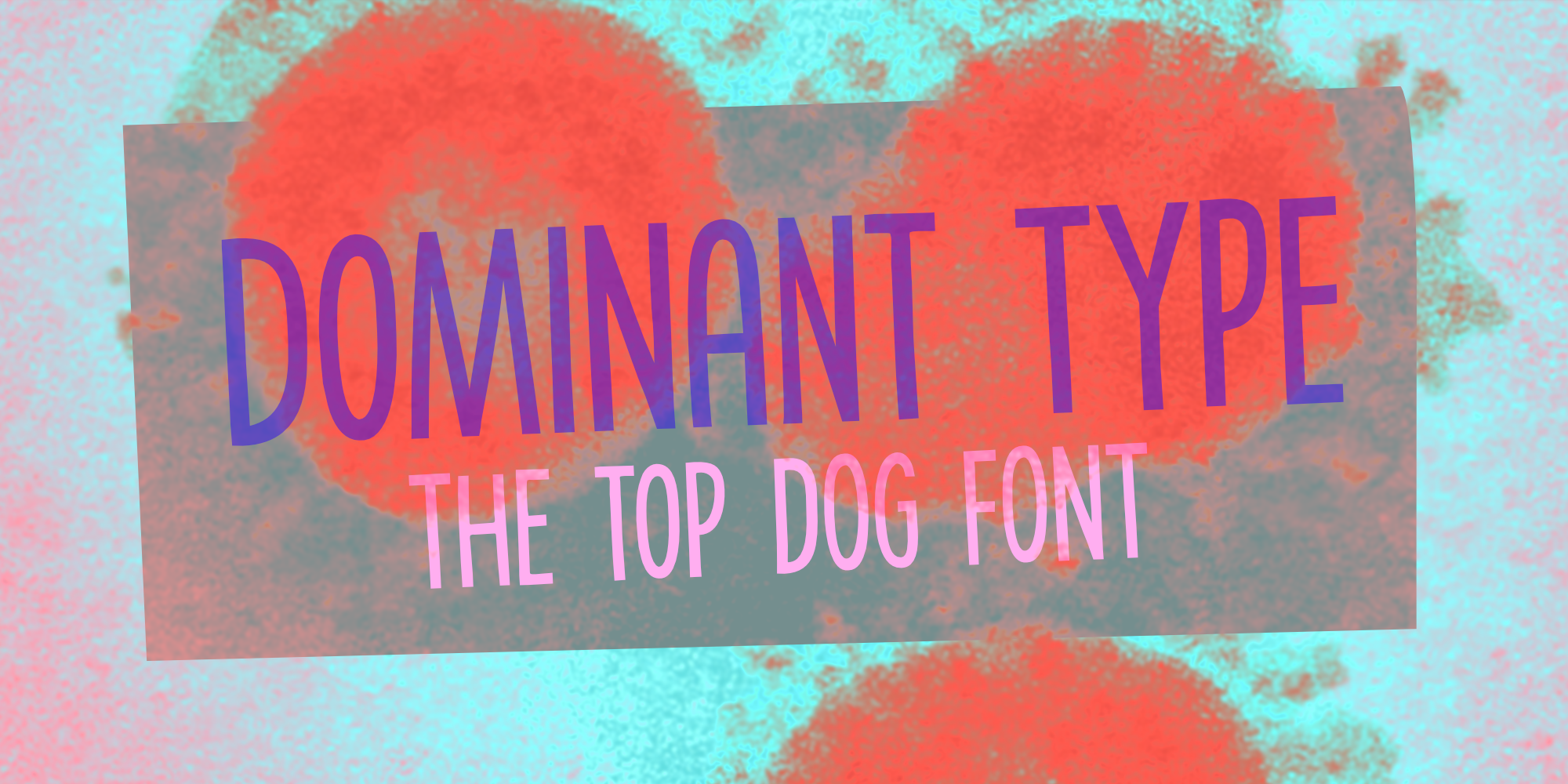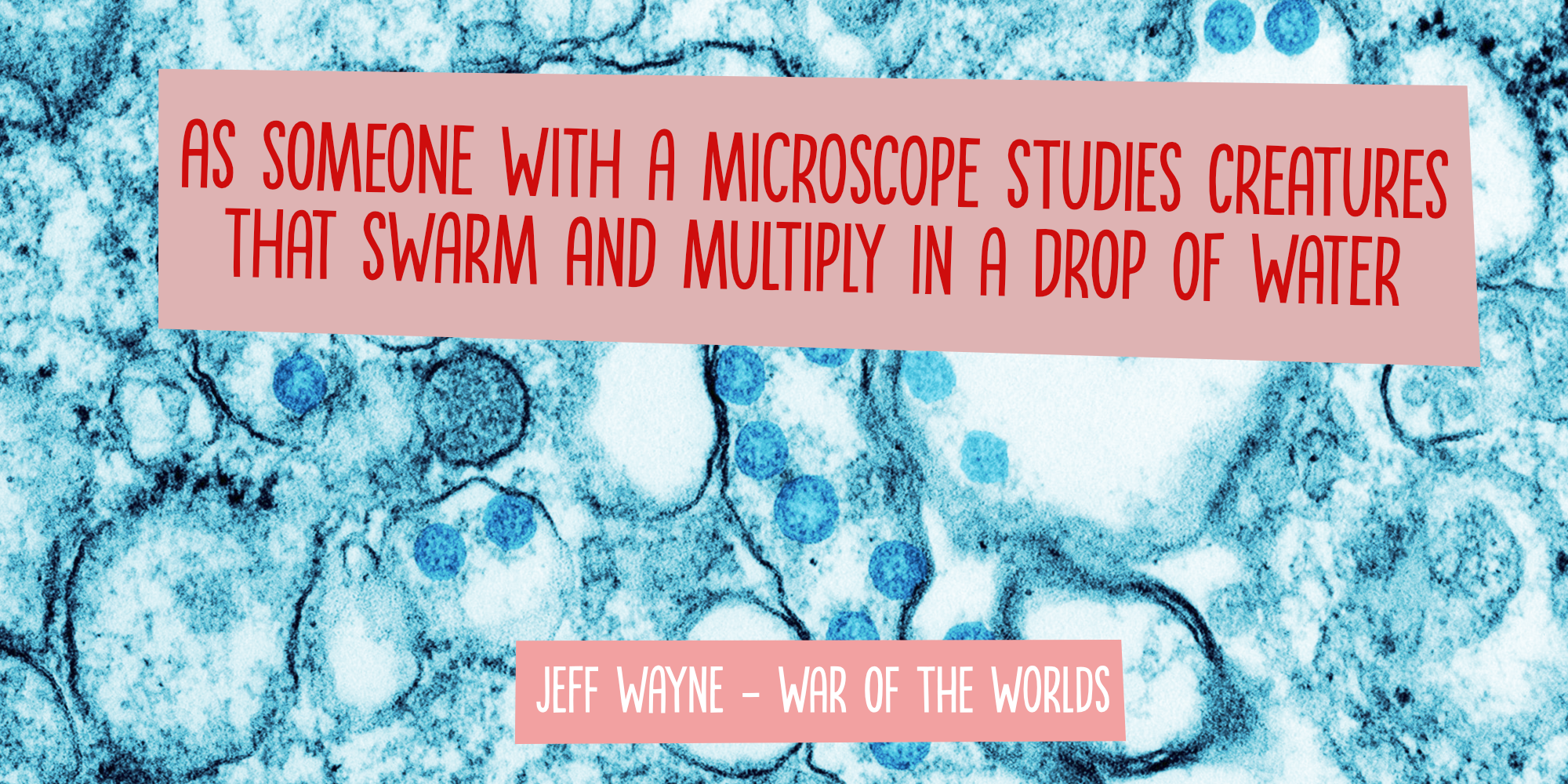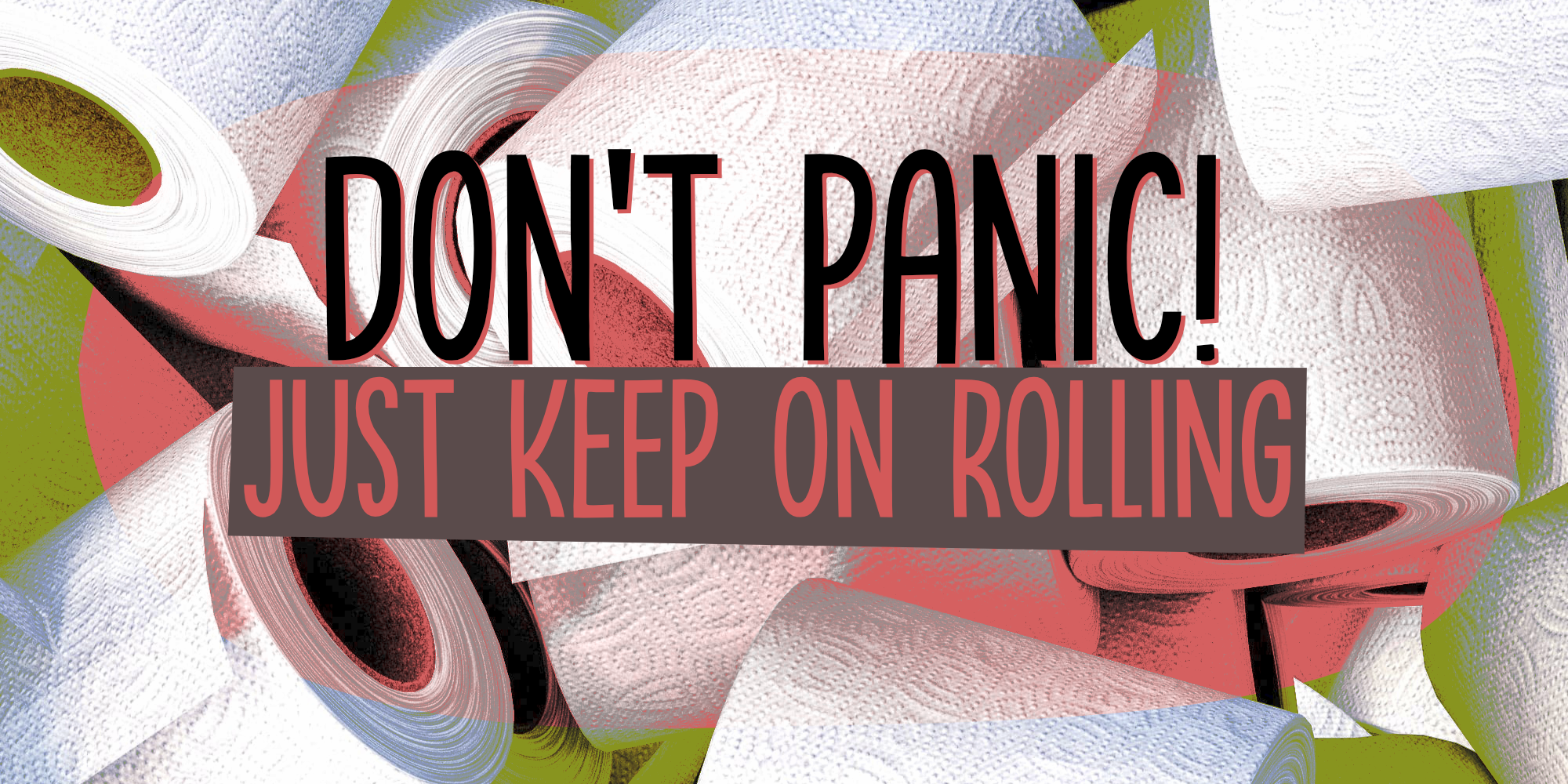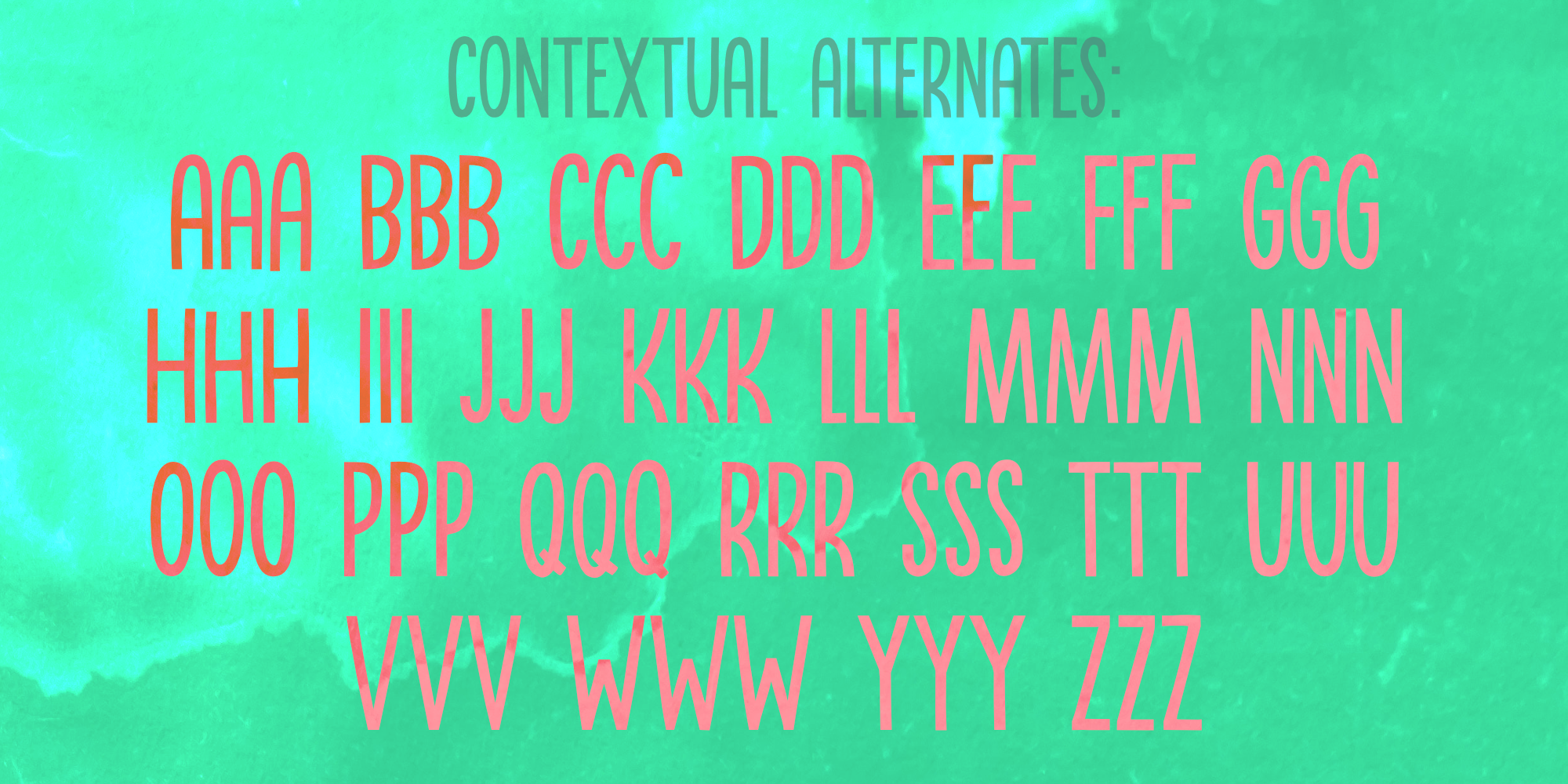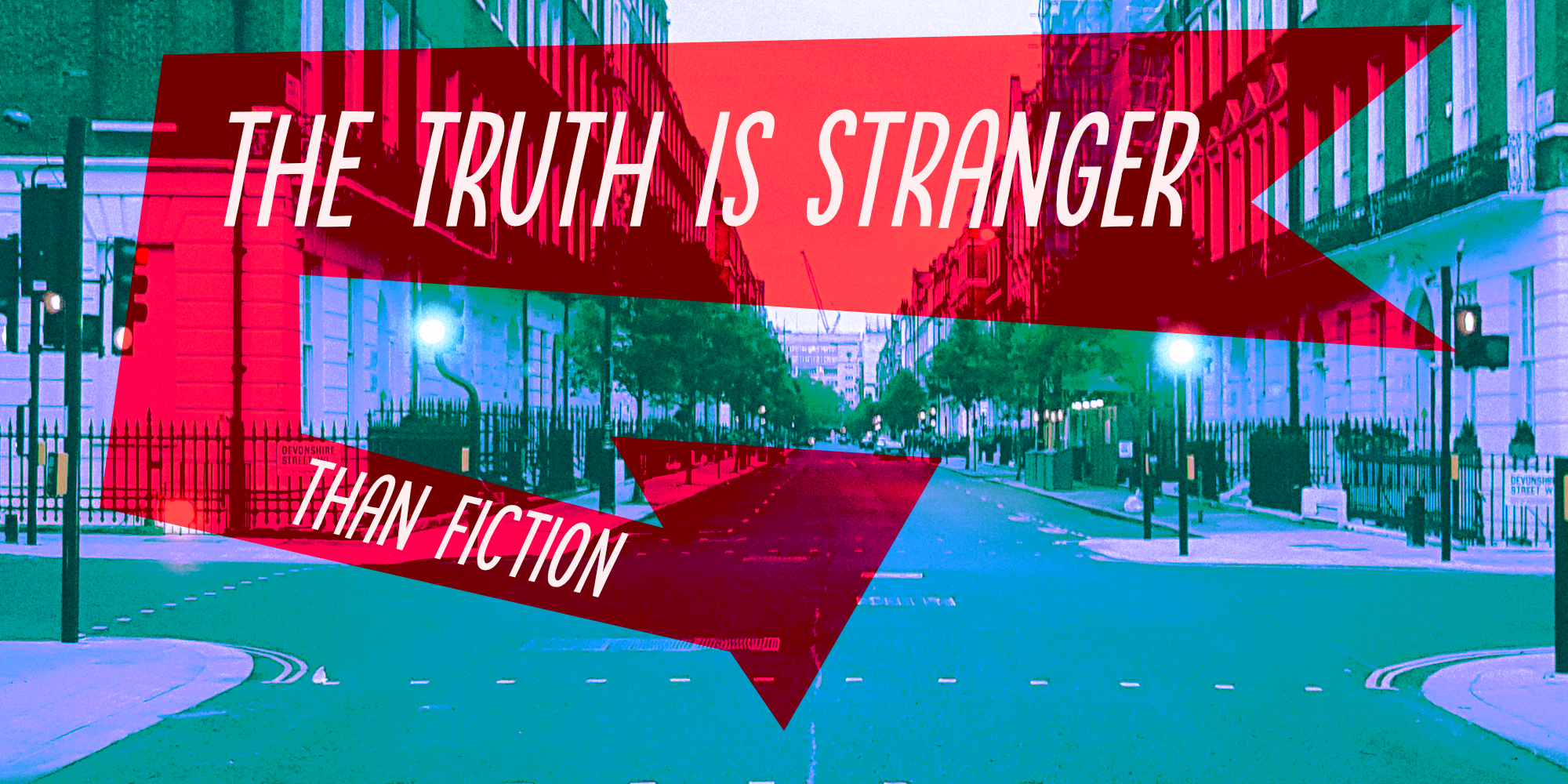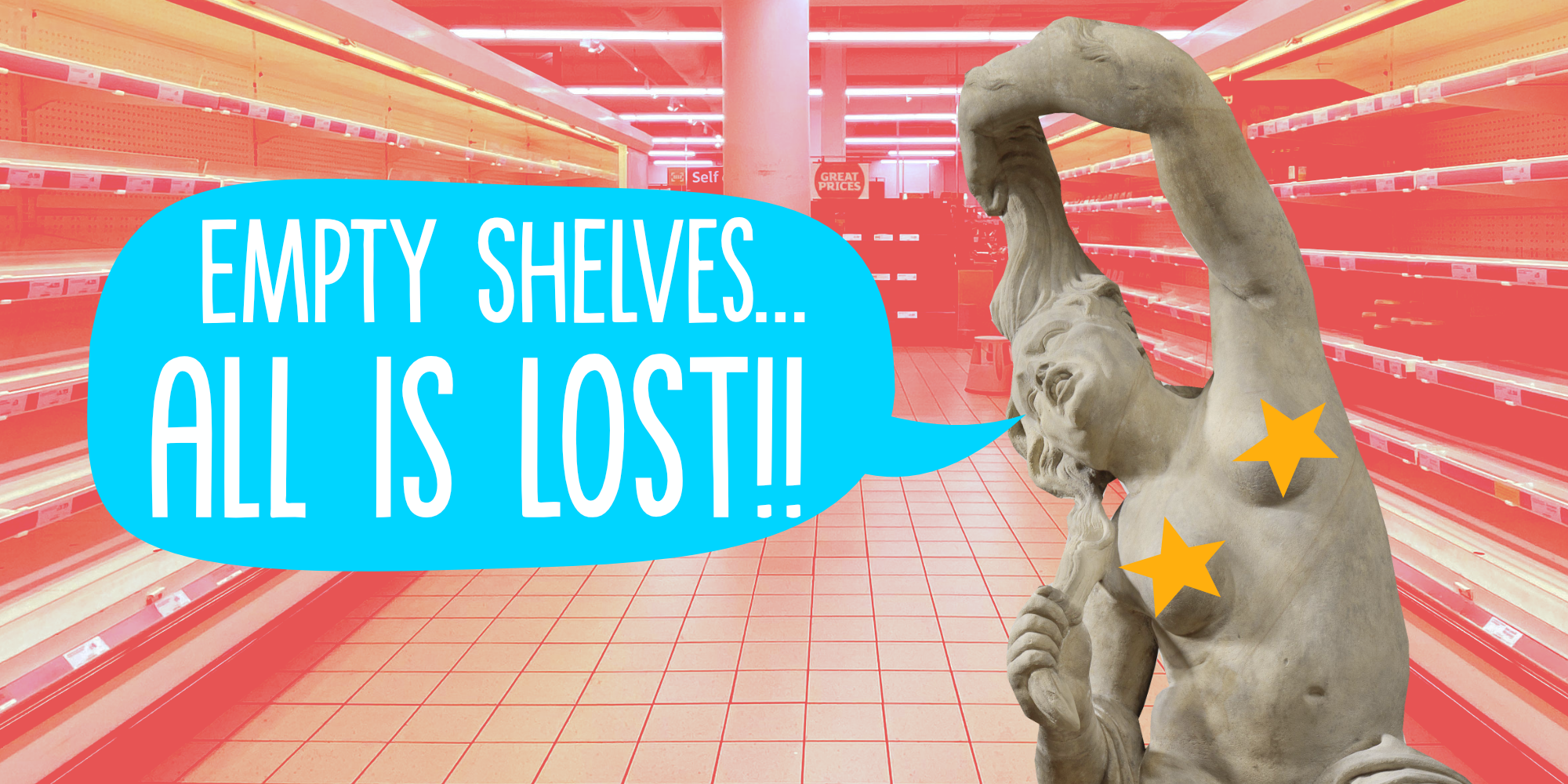
Dominant Type (2 fonts)
Dominant Type is a handmade all caps font. It comes with extensive language support (including Vietnamese) and 2 sets of alternate glyphs for that bit of ‘random awesomeness’!